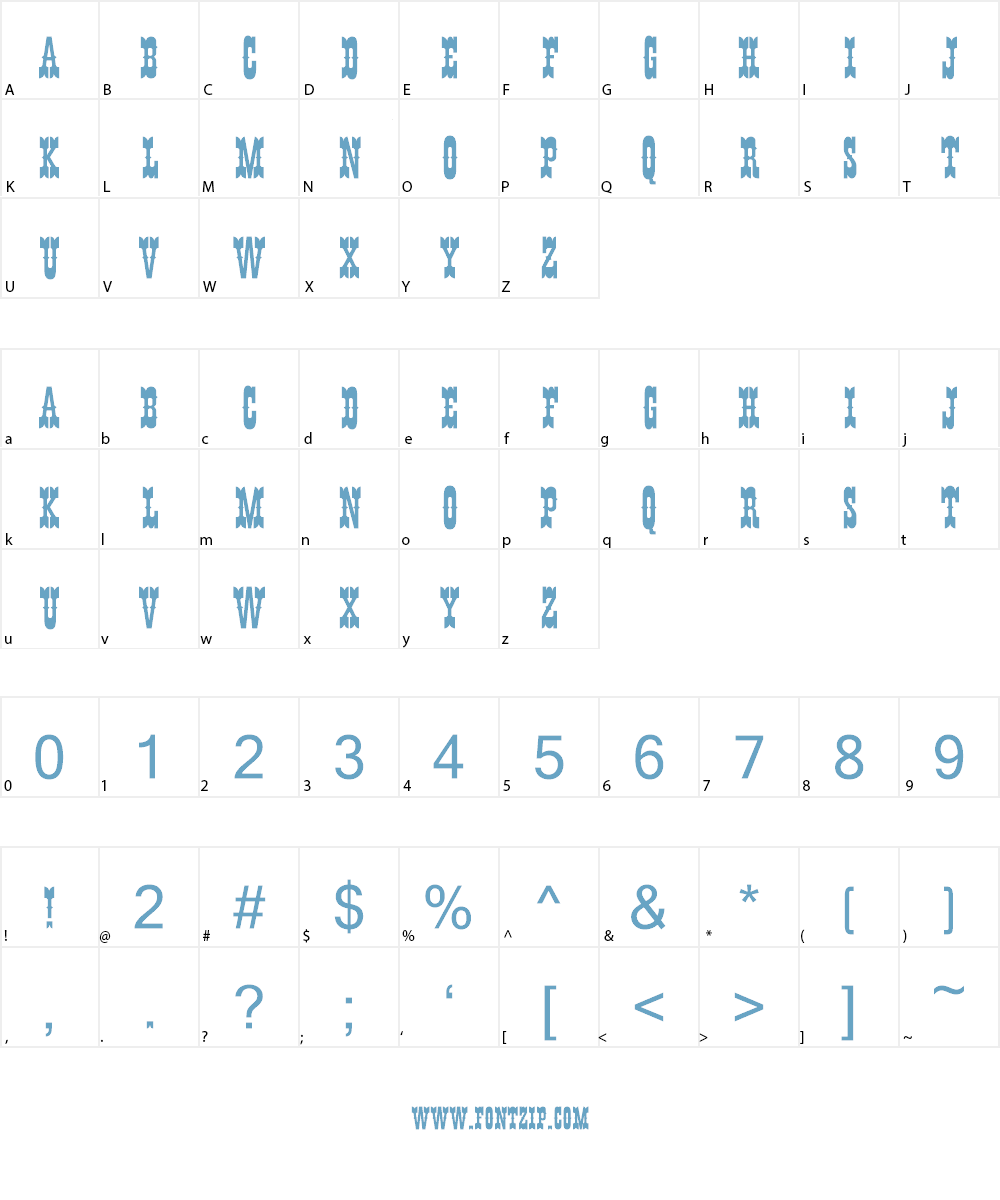
HFF Young Wanna is based on Juanita from page 50 of Condensed Alphabets:
100 Complete Fonts by Dan X. Solo. Juanita is also seen on page 35 of The
Solotype Catalog of 4,147 Display Typefaces.
HFF Young Wanna Plain was derived from HFF Young Wanna to match Juanita
Plain as shown on page 37 of The Solotype Catalog.
HFF Young Wanna and HFF Young Wanna Plain were created to decrease the
number of empty spaces in the Solopedia.